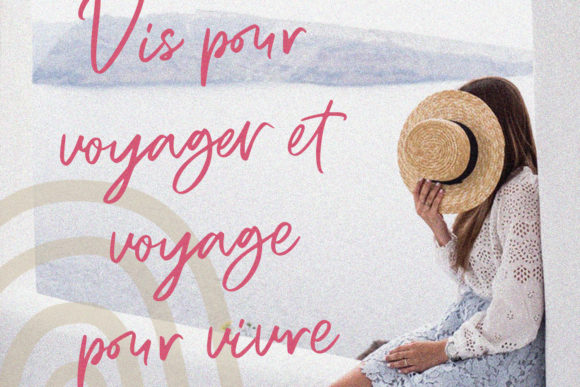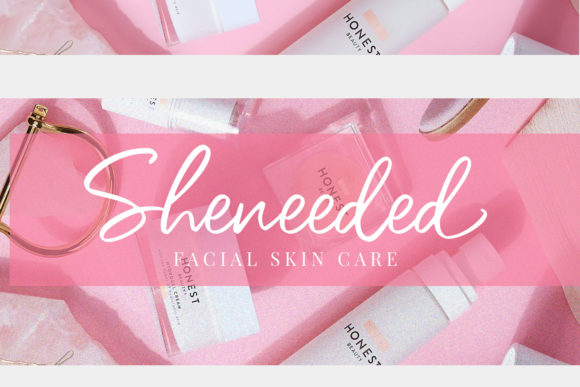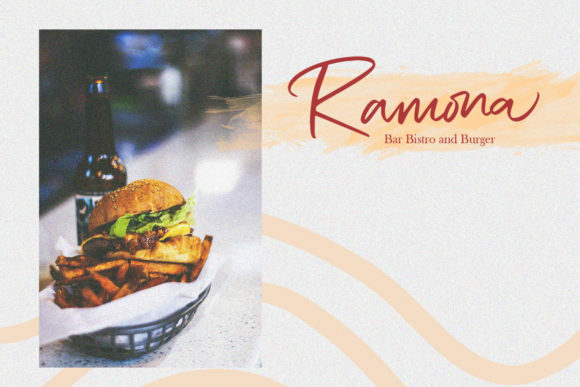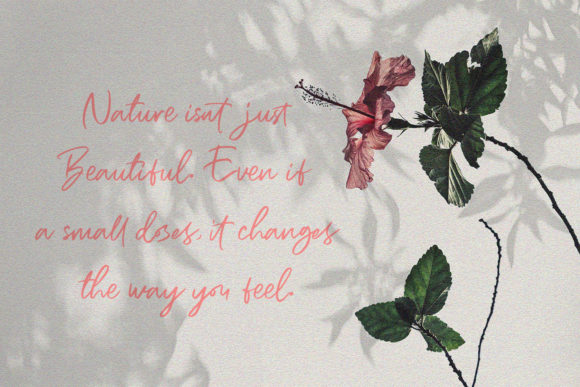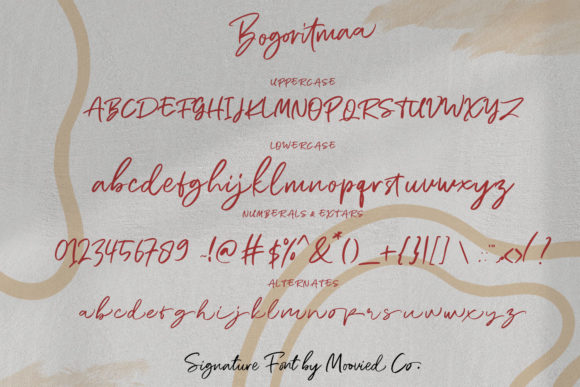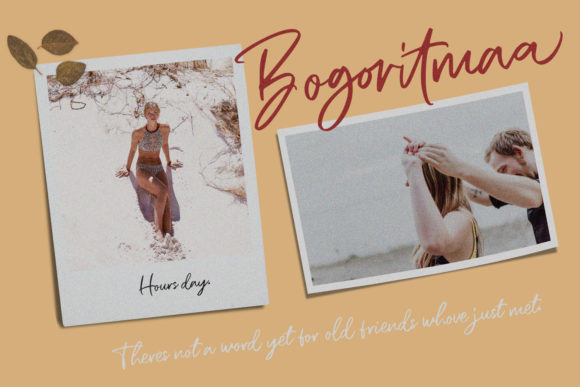
Bogoritmaa Font: Elevate Your Crafting Ideas with a Personal Touch
In the world of crafting, the right font can make all the difference. It can add a personal touch, convey a message, or simply make your project stand out. If you’re a crafter, designer, or DIY enthusiast looking for a unique and modern signature font, look no further than Bogoritmaa. This stunning font is designed to bring a touch of elegance and sophistication to any crafting idea, and in this article, we’ll explore what makes Bogoritmaa so special.
What is Bogoritmaa Font?
Bogoritmaa is a modern signature font that boasts a unique style, perfect for crafters, designers, and DIY enthusiasts. Its distinctive design makes it an excellent choice for adding a personal touch to any project, whether it’s a handmade card, a customized gift, or a DIY home decor item. With Bogoritmaa, you can add a touch of elegance and sophistication to your crafting ideas, making them truly one-of-a-kind.
Key Features of Bogoritmaa Font
So, what makes Bogoritmaa font so special? Here are some of its key features:
• Unique Style: Bogoritmaa has a distinctive design that sets it apart from other fonts. Its modern and elegant style makes it perfect for crafters and designers looking for a font that will add a personal touch to their projects.
• Modern and Sophisticated: Bogoritmaa is a modern signature font that exudes elegance and sophistication. It’s perfect for crafters and designers who want to add a touch of luxury to their projects.
• Versatile: Bogoritmaa is a versatile font that can be used for a wide range of crafting ideas, from handmade cards and customized gifts to DIY home decor items.
• Easily Readable: Despite its unique style, Bogoritmaa is easily readable, making it perfect for use in a variety of projects, from small signs to large banners.
How to Use Bogoritmaa Font in Your Crafting Ideas
Using Bogoritmaa font in your crafting ideas is easy. Here are a few ideas to get you started:
• Handmade Cards: Add a personal touch to your handmade cards with Bogoritmaa font. Use it to write the recipient’s name, a special message, or a simple greeting.
• Customized Gifts: Make your gifts truly special with Bogoritmaa font. Use it to add the recipient’s name or a special message to a customized mug, tote bag, or piece of jewelry.
• DIY Home Decor: Add a touch of elegance to your DIY home decor projects with Bogoritmaa font. Use it to create signs, banners, or wall art that reflects your personal style.
Tips for Using Bogoritmaa Font
Here are a few tips for using Bogoritmaa font in your crafting ideas:
• Experiment with Colors: Bogoritmaa font looks great in a variety of colors. Experiment with different colors to find the one that works best for your project.
• Mix and Match: Don’t be afraid to mix and match Bogoritmaa font with other fonts. This can add visual interest to your project and make it truly unique.
• Keep it Simple: Bogoritmaa font is a statement font, so keep your project simple and let the font do the talking.
Bogoritmaa font is a modern signature font with a unique style that’s perfect for crafters, designers, and DIY enthusiasts. Its distinctive design makes it an excellent choice for adding a personal touch to any project, whether it’s a handmade card, a customized gift, or a DIY home decor item. With its versatility, readability, and elegance, Bogoritmaa font is sure to become a favorite in your crafting arsenal. So why not give it a try and see how it can elevate your crafting ideas to the next level?